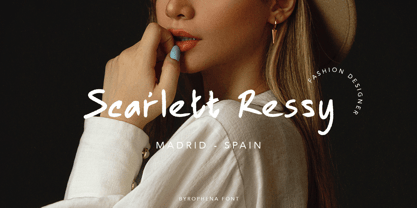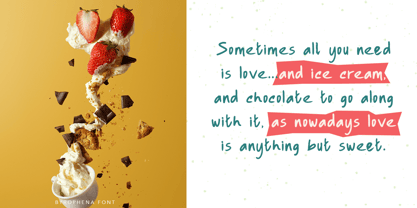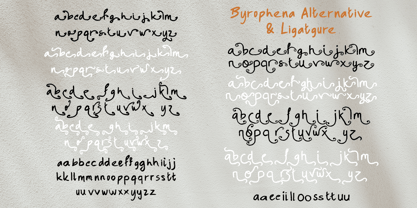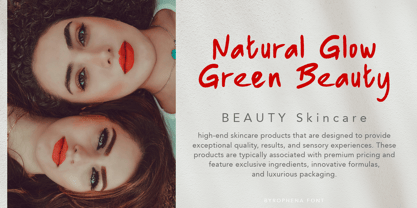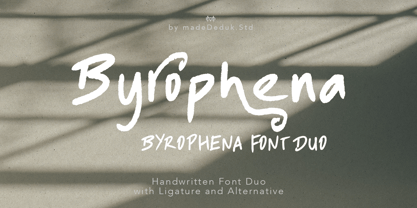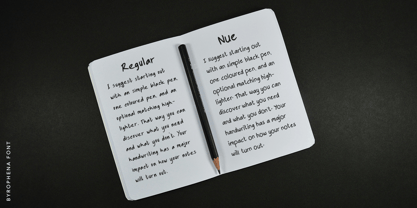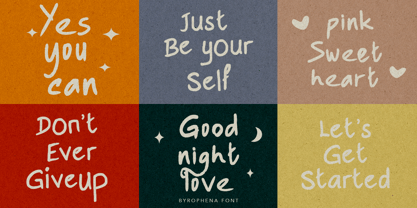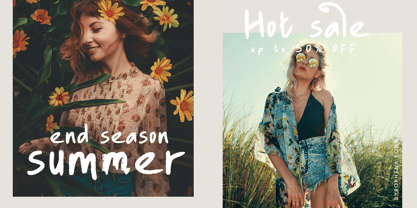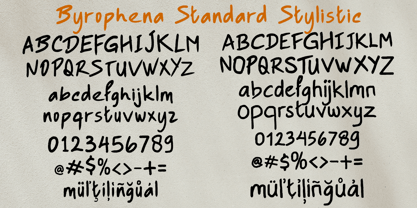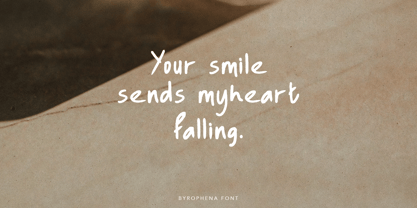
Byrophena
by madeDeduk
The Byrophena Font Family was designed by madededuk and published by madeDeduk. Byrophena contains 2 styles and family package options. More about this family
Byrophena and Byrophena Nue is a simple brush handwritten fontduo. Byrophena includes more than 50 ligatures to make everything look natural handmade handwritten. This font perfect for poster design, book covers, merchandise, fashion campaigns, newsletters, branding, advertising, magazines, greeting cards, album covers, and quote designs and more.